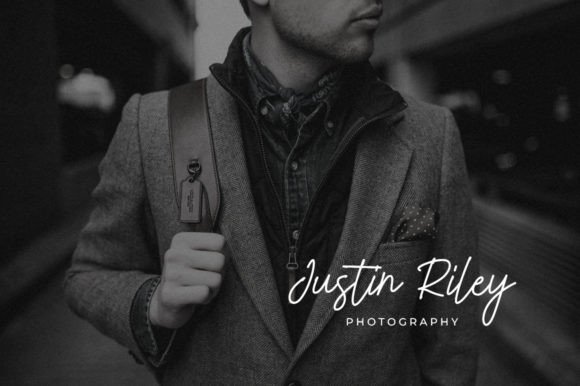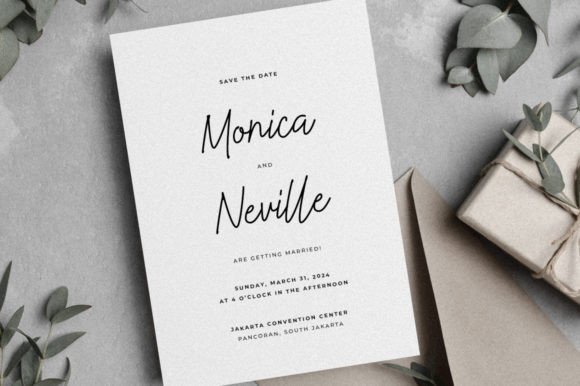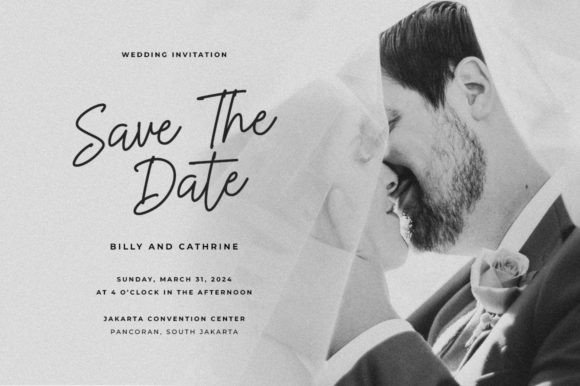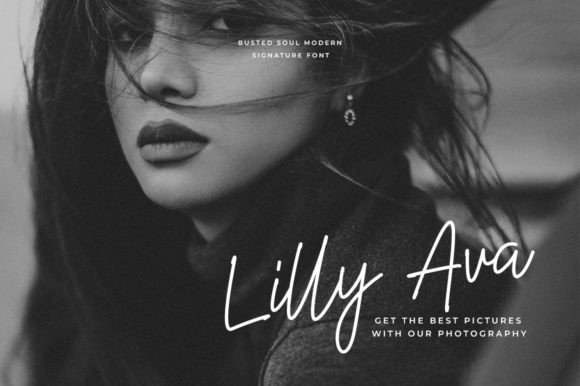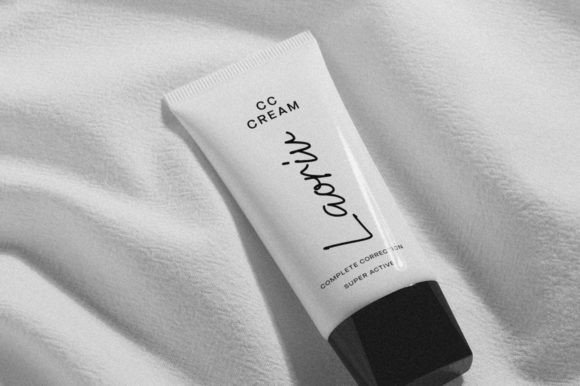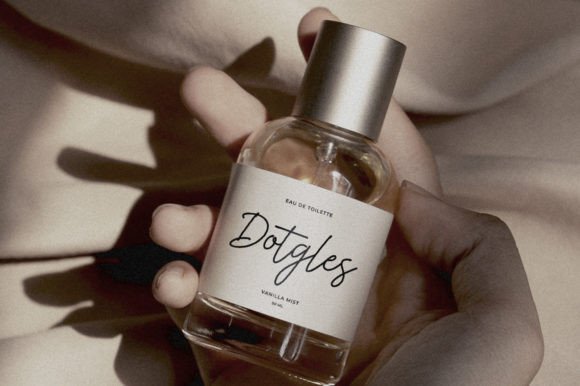
Busted Soul Font: Elevate Your Designs with Elegant Handwritten Style
In the world of typography, fonts play a crucial role in conveying the tone and personality of a design. For crafters, designers, and artists, finding the perfect font can be a daunting task. However, if you’re looking for a font that exudes elegance and sophistication, look no further than the Busted Soul Font. This beautiful, flowing handwritten font is designed to add a touch of refinement to your favorite projects.
What is Busted Soul Font?
Busted Soul Font is a stunning, handwritten typeface that boasts an elegant touch. Its flowing curves and lines create a sense of movement and fluidity, making it perfect for designs that require a personal and human touch. This font is ideal for crafters, designers, and artists who want to add a touch of sophistication to their work.
Characteristics of Busted Soul Font
The Busted Soul Font has several characteristics that make it stand out from other fonts. Some of its notable features include:
- Elegant and Refined: The font’s elegant curves and lines create a refined and sophisticated look that’s perfect for high-end designs.
- Flowing Handwritten Style: The font’s handwritten style gives it a personal and human touch, making it ideal for designs that require a personal touch.
- Versatile: The Busted Soul Font is versatile and can be used for a wide range of designs, from wedding invitations to business cards.
Use Cases for Busted Soul Font
The Busted Soul Font is perfect for a variety of design projects, including:
- Wedding Invitations: The font’s elegant and refined style makes it perfect for wedding invitations, adding a touch of sophistication and romance to your designs.
- Thank You Cards: The font’s handwritten style makes it ideal for thank you cards, adding a personal touch to your designs.
- Quotes: The font’s flowing curves and lines make it perfect for quotes, adding a touch of elegance and sophistication to your designs.
- Greeting Cards: The font’s versatile style makes it perfect for greeting cards, allowing you to create a wide range of designs for different occasions.
- Logos: The font’s unique and elegant style makes it perfect for logos, allowing you to create a memorable and sophisticated brand identity.
- Business Cards: The font’s refined style makes it perfect for business cards, adding a touch of professionalism and elegance to your designs.
Why Choose Busted Soul Font?
There are several reasons why you should choose the Busted Soul Font for your design projects. Some of the benefits of using this font include:
- Unique and Elegant: The font’s unique and elegant style sets it apart from other fonts, making it perfect for designers who want to create sophisticated designs.
- Versatile: The font’s versatile style makes it perfect for a wide range of designs, from wedding invitations to business cards.
- Easy to Read: The font’s clear and readable style makes it perfect for designs that require a high level of legibility.
In conclusion, the Busted Soul Font is a beautiful, flowing handwritten font that’s perfect for designers, crafters, and artists who want to add a touch of elegance and sophistication to their designs. Its unique and refined style makes it perfect for a wide range of design projects, from wedding invitations to business cards. With its versatility, legibility, and elegance, the Busted Soul Font is an excellent choice for anyone looking to elevate their designs.
So, if you’re looking for a font that can add a touch of refinement and sophistication to your designs, look no further than the Busted Soul Font. With its beautiful, flowing curves and lines, this font is sure to become a staple in your design toolkit.